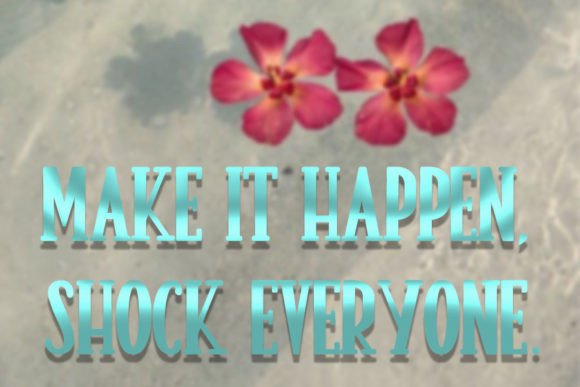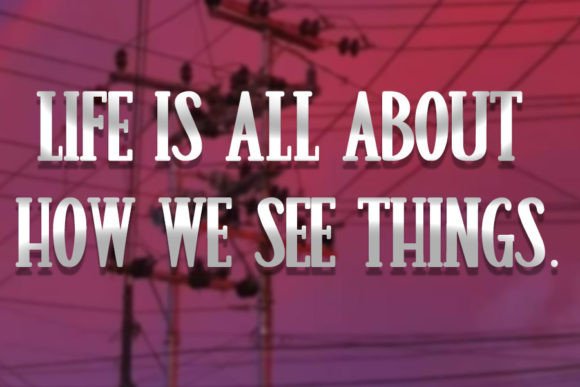
Apartments Font: Elevate Your Designs with a Touch of Elegance
In the world of typography, the right font can make all the difference in transforming a design from ordinary to extraordinary. For designers and crafters seeking to add a personal touch to their creations, Apartments Font is an excellent choice. This authentic serif font is designed to bring a sense of sophistication and elegance to any project, making it perfect for those who appreciate the finer details.
What is Apartments Font?
Apartments Font is a beautifully crafted serif font that exudes a sense of classic charm. Its authentic design makes it an ideal choice for a wide range of applications, from formal documents to creative projects. With its elegant lines and refined features, this font is sure to impress.
Key Features of Apartments Font
- Authentic Serif Design: Apartments Font boasts a traditional serif design that adds a touch of sophistication to any text.
- Versatile: This font is suitable for various design projects, including letters, name tags, business cards, invitations, and more.
- Elegant Lines: The font’s refined lines and curves create a sense of elegance, making it perfect for designs that require a touch of luxury.
- Easy to Read: Despite its elegant design, Apartments Font remains highly legible, ensuring that your message is conveyed clearly.
Use Cases for Apartments Font
Apartments Font is incredibly versatile, making it suitable for a wide range of design projects. Here are some ideas to get you started:
- Wedding Invitations: Add a touch of elegance to your wedding invitations with Apartments Font.
- Business Cards: Create a lasting impression with professionally designed business cards featuring Apartments Font.
- Name Tags: Use Apartments Font to create elegant name tags for events, conferences, or meetings.
- Stationery: Elevate your stationery designs with the classic charm of Apartments Font.
- Digital Designs: Incorporate Apartments Font into your digital designs, such as social media graphics, blog posts, or website headers.
Tips for Using Apartments Font
To get the most out of Apartments Font, consider the following tips:
- Pair with Other Fonts: Experiment with pairing Apartments Font with other fonts to create a unique and visually appealing design.
- Adjust Font Size: Adjust the font size to achieve the desired level of emphasis and elegance.
- Use in Combination with Images: Combine Apartments Font with high-quality images to create a stunning visual effect.
| Font Name | Apartments Font |
| Author | SoulusYid |
Apartments Font is a beautiful and elegant serif font that can add a personal touch to any design. With its authentic design, elegant lines, and versatility, it’s an excellent choice for designers and crafters seeking to create sophisticated and refined designs. Whether you’re working on a wedding invitation, business card, or digital design, Apartments Font is sure to impress.